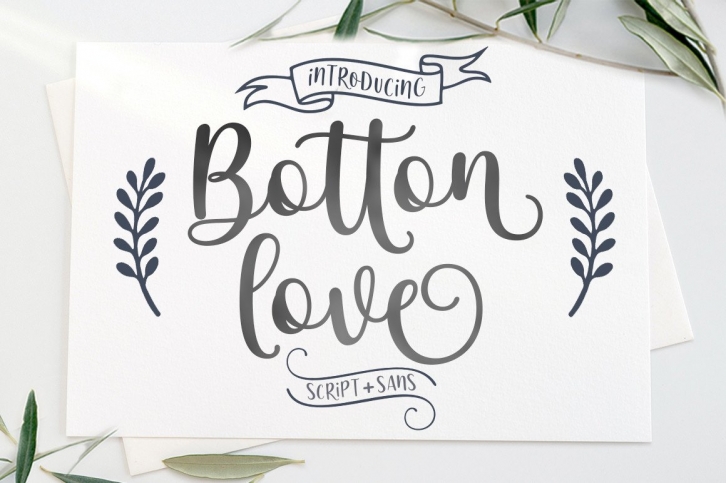
Botton Love Duo is a lovely and relaxed duo font (script and sans serif). It looks fabulous on a variety of design ideas, such as cards, invitations, logos and so much more. This font is PUA encoded which means you can access all of the glyphs and swashes with ease!Â